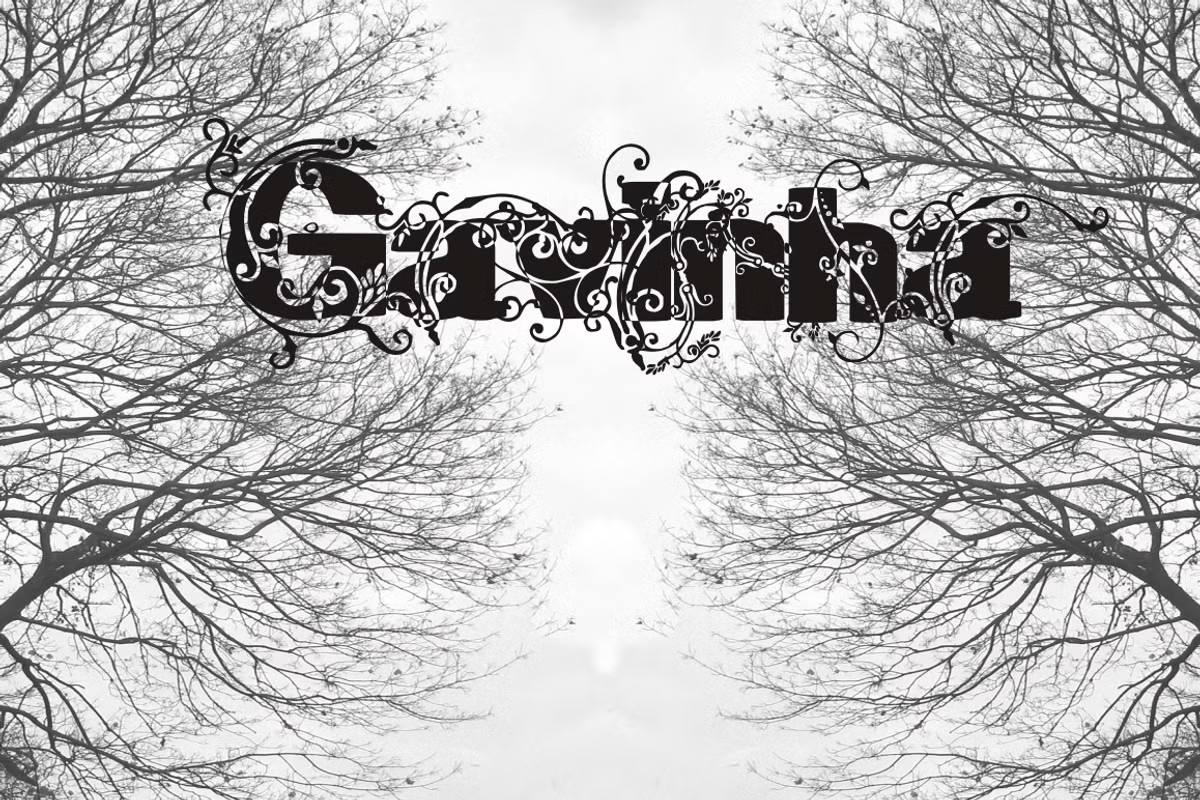
Gavinha
Font Family by Intellecta Design
A highly decorative font inspired by victorian and flourish like designs. Great in header and large vintage style designs.